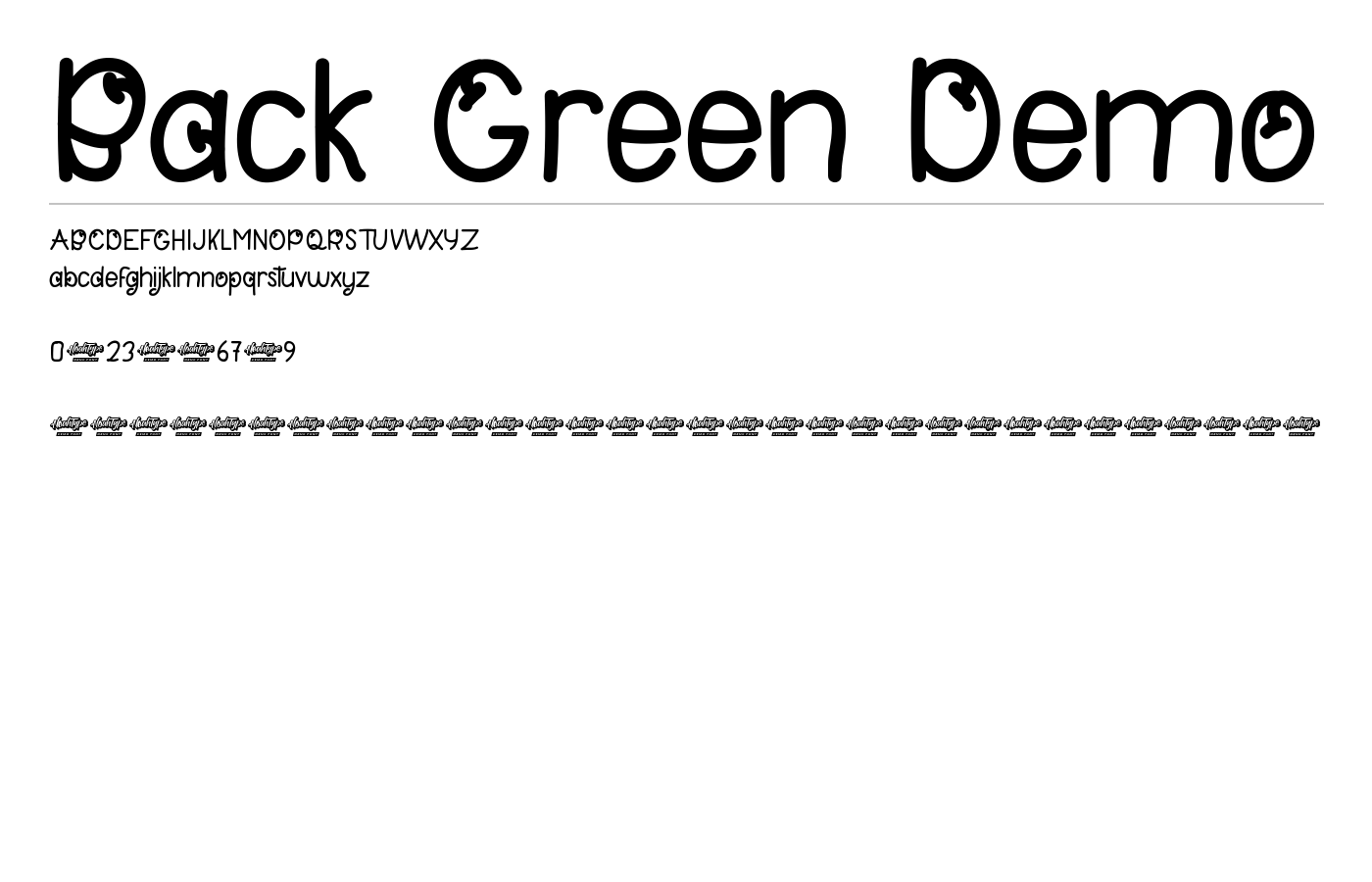
Back Green Demo is a playful and quirky sans serif font characterized by its unique, rounded letterforms embellished with whimsical curls and strokes. It has a light weight and normal width with tall x-height, making it friendly and approachable, ideal for creative designs where a fun, informal vibe is desired. This font works well in children’s books, casual branding, and headline text that seeks to convey charm and personality.
Back Green Demo Font
About Back Green Demo Font